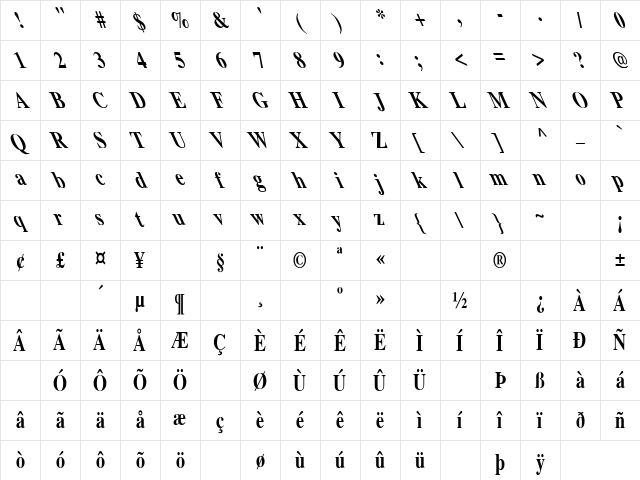
Times-Bold Cn Extreme Lefti Regular
Complete Times-Bold Cn Extreme Lefti Regular glyph index. Displaying only characters natively supported by Times-Bold Cn Extreme Lefti Regular font.
Design Context for Times-Bold Cn Extreme Lefti
Times-Bold Cn Extreme Lefti is a composed and adaptable typeface that performs quietly and consistently across a wide range of design contexts. Its bold stroke weight gives it real presence on the page.